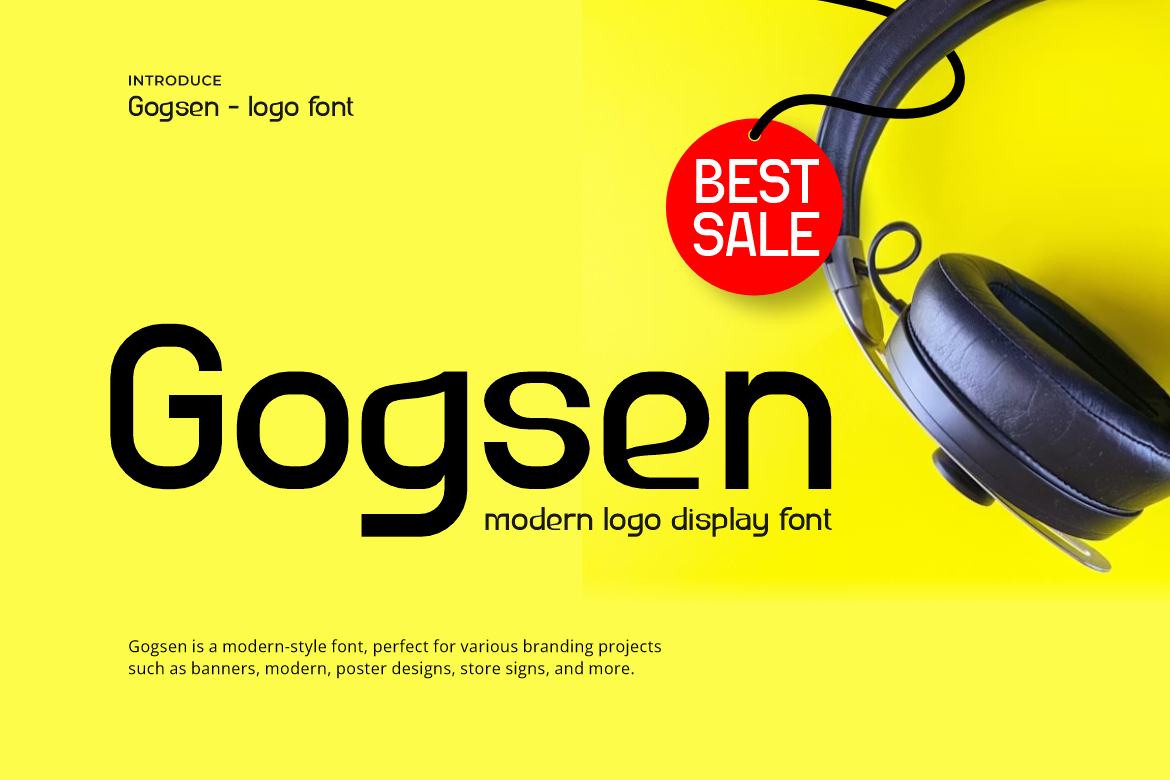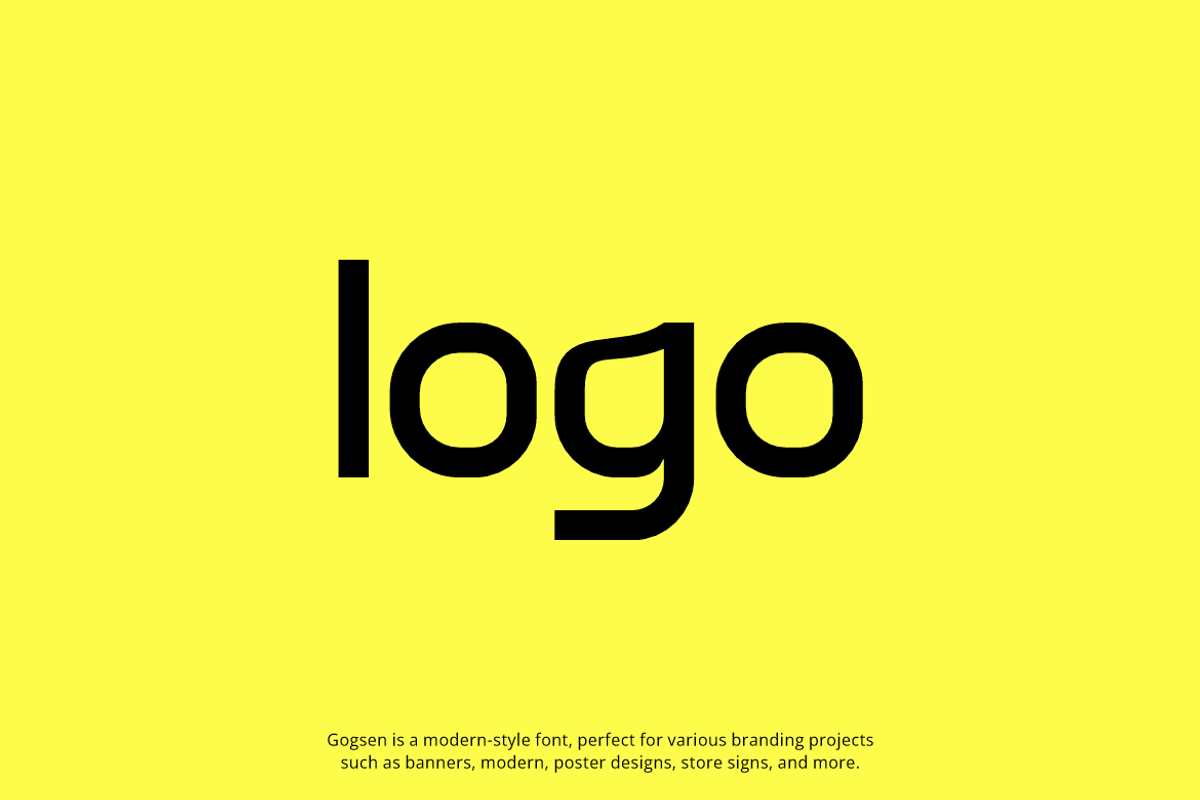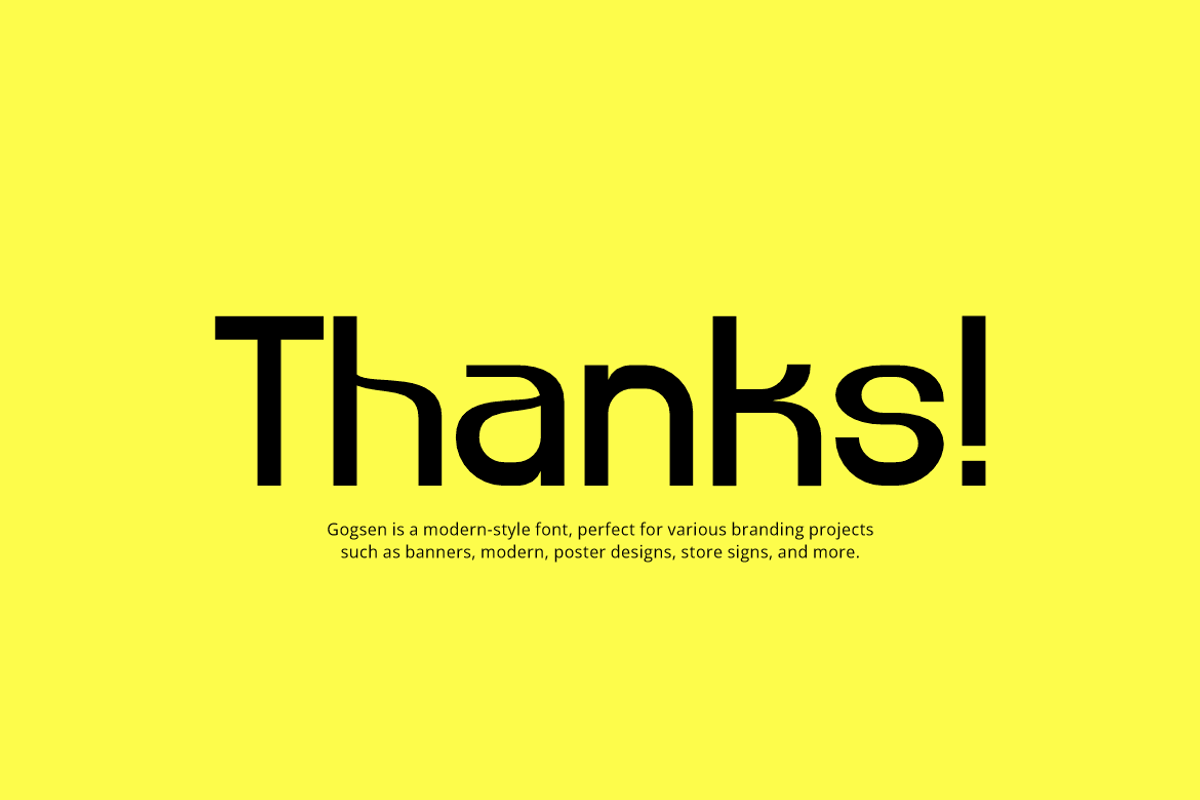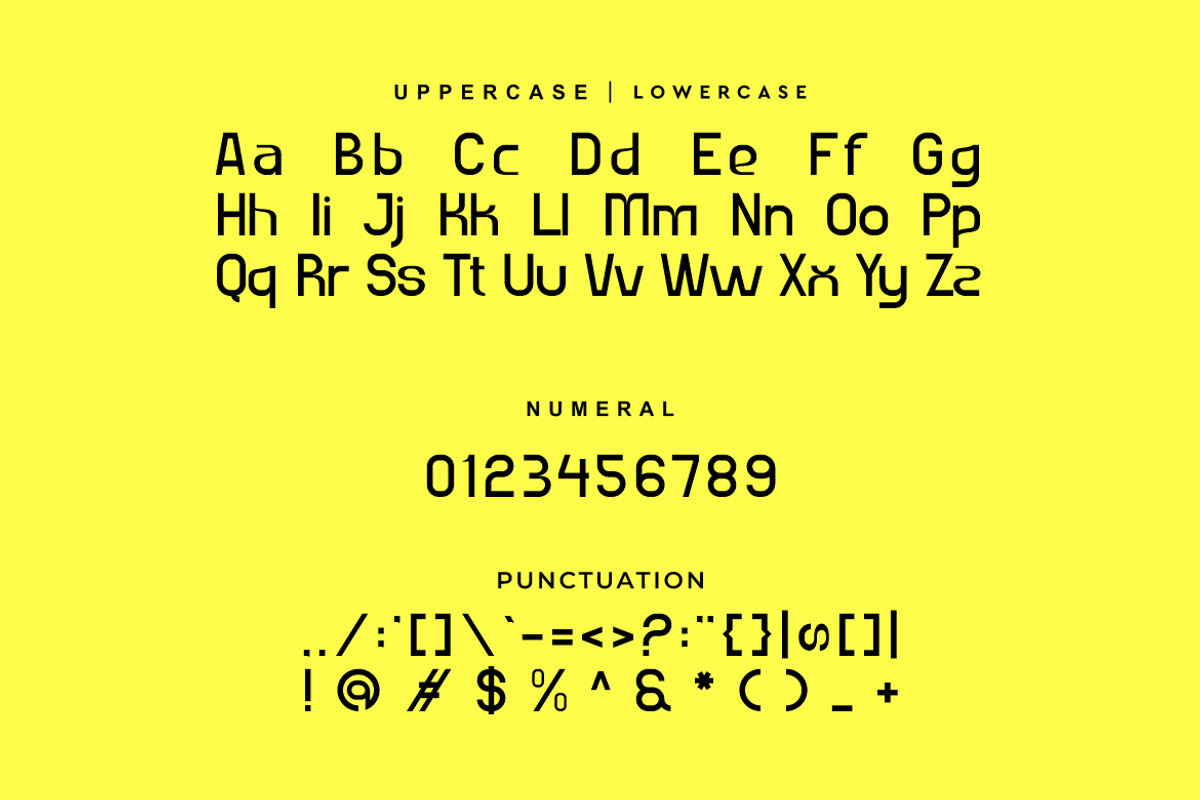
Gogsen - Logo Font
Gogsen Font is a modern and authentic display typeface. It’s perfect for various branding projects such as logos, sports designs, and more. This font stands out beautifully in a wide range of contexts.